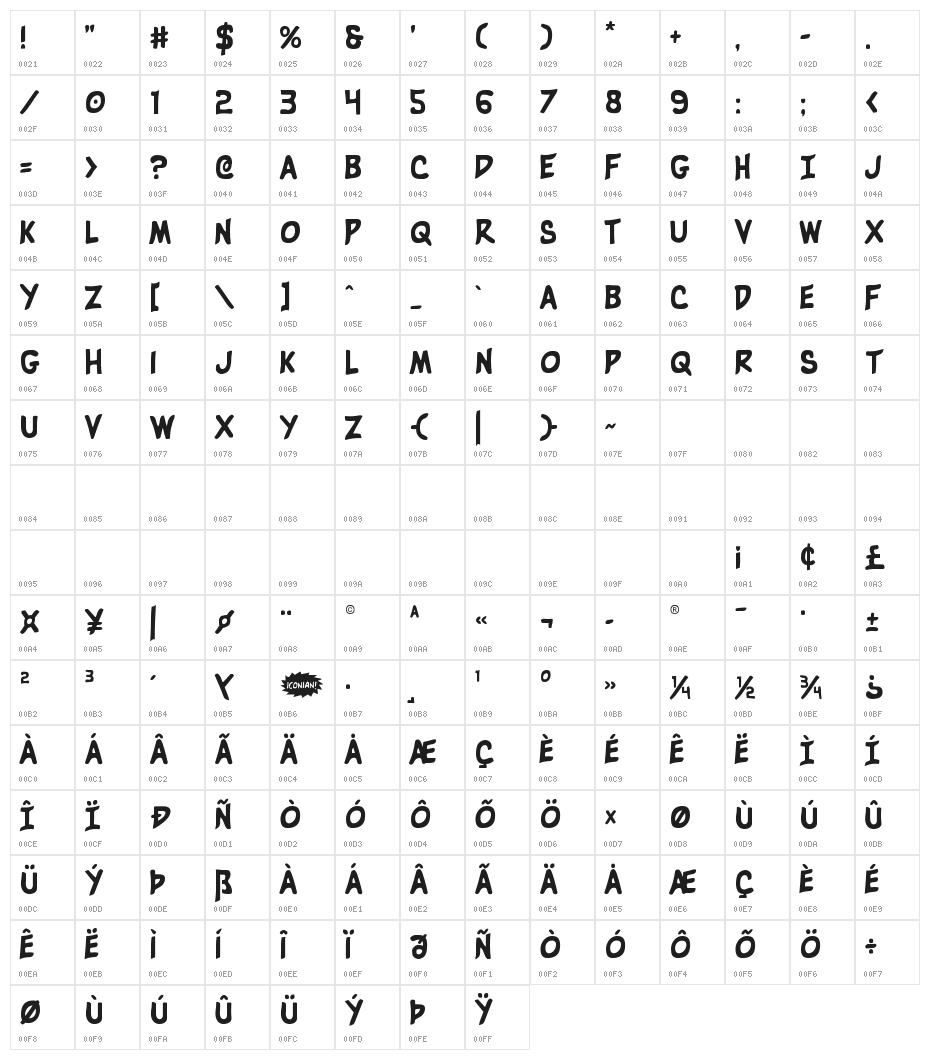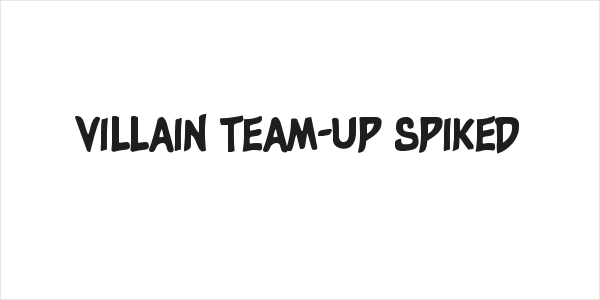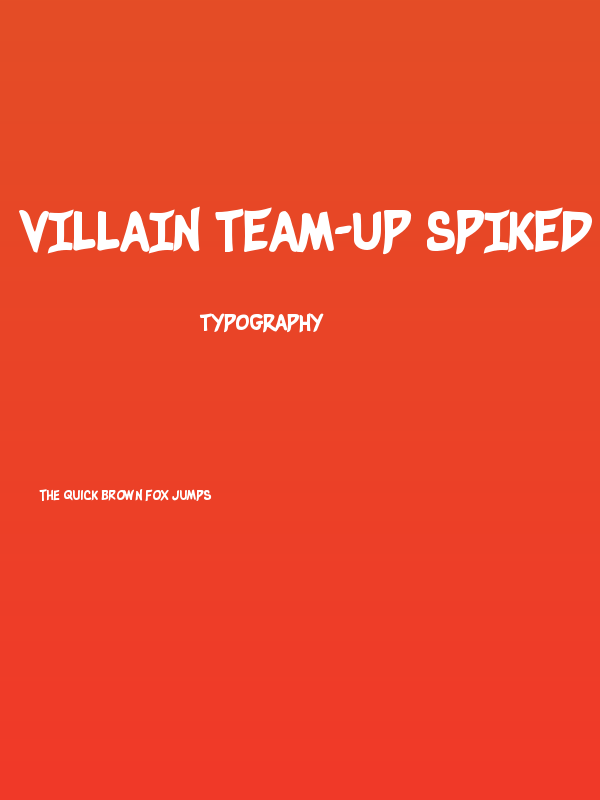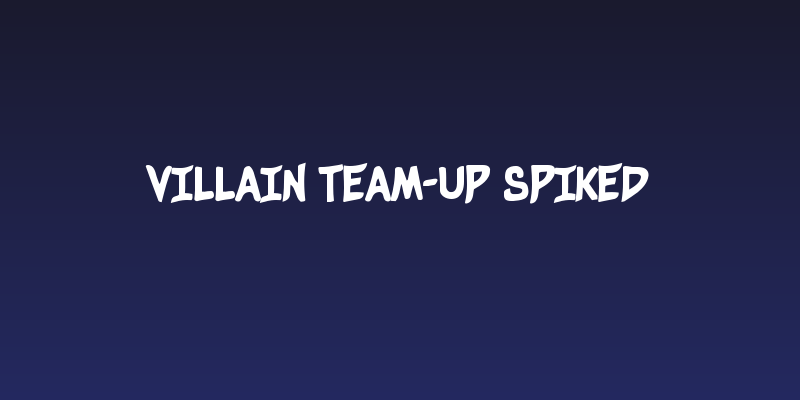
Villain Team-Up Spiked Font
Villain Team-Up Spiked Description
This font features a bold and playful style with a slightly irregular and hand-drawn appearance. The characters have a unique, spiked design that gives them a dynamic and energetic feel. The uppercase and lowercase letters are consistent in their boldness, with rounded edges and a slightly uneven baseline that adds to the casual, informal look. The numerals and special characters maintain this playful aesthetic, making the font suitable for creative and fun projects. Its distinctive style is eye-catching and can be used to convey a sense of excitement and creativity.
| Overall Style | Playful, Energetic, Casual |
| Proposed Projects | Ideal for comic books, children's books, posters, and playful branding. |